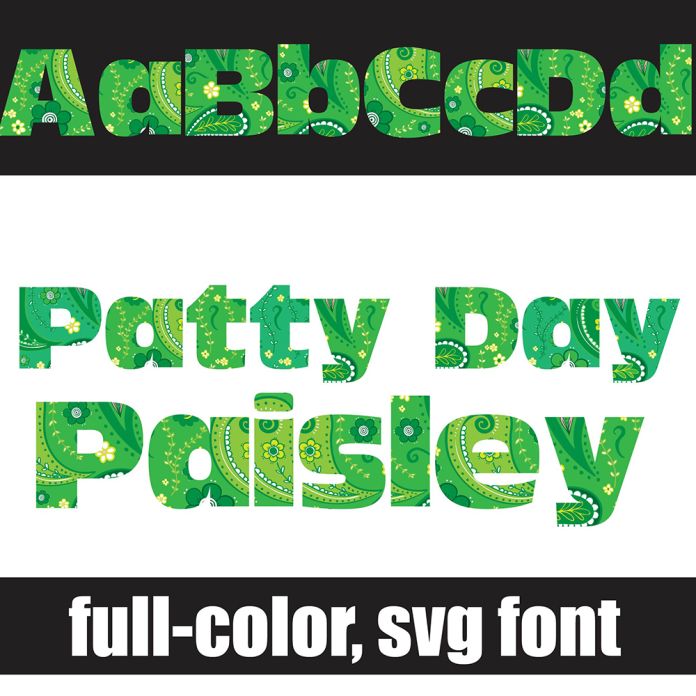
This full-color font features blocky, sans serif lettering with a pretty green paisley fill. There is an alt case with an additional color of each letter. This font works best for titles, displays, posters and more. Please note color fonts will show as black in non compatible programs. This font type is compatible with Silhouette Studio.